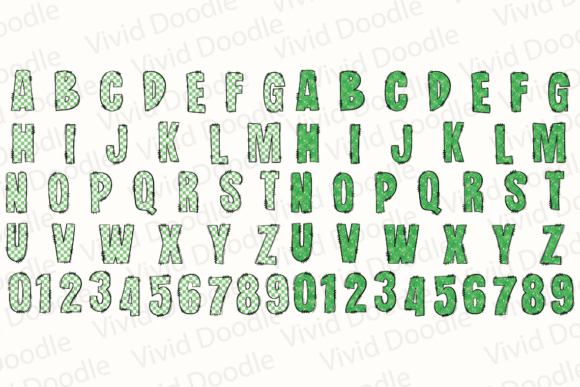
St. Patrick’s Day Font
St. Patrick’s Day Font is a lively and festive typeface inspired by the joy and traditions of St. Patrick’s Day. It captures the essence of the holiday with cheerful, playful letterforms adorned with Irish-themed elements. This font is designed to bring fun and celebration to your creative projects. St. Patrick’s Day Font is your go-to choice for spreading Irish cheer, perfect for holiday invitations, event flyers, greeting cards, school projects, party decorations, and social media posts. Whether planning a parade, hosting a festive gathering, or designing themed artwork, this font will make your designs feel magical, lucky, and full of Irish charm!